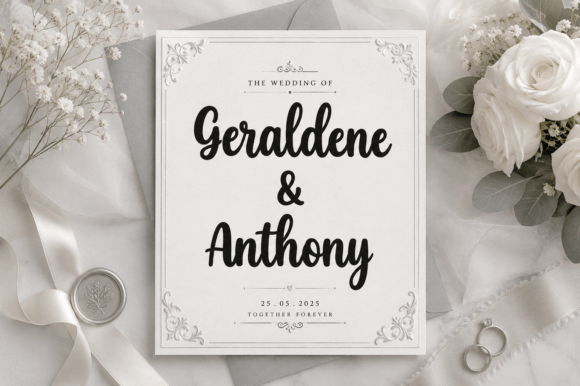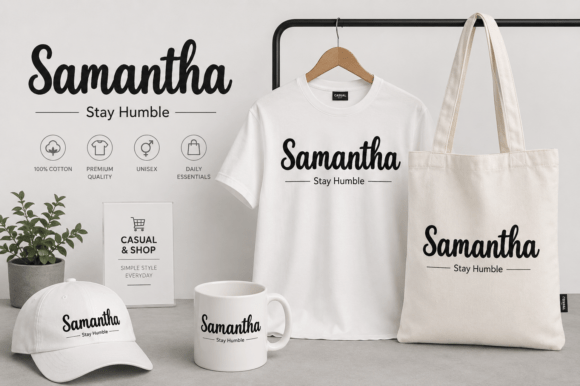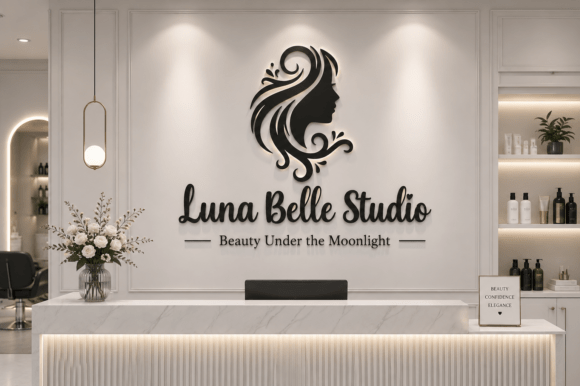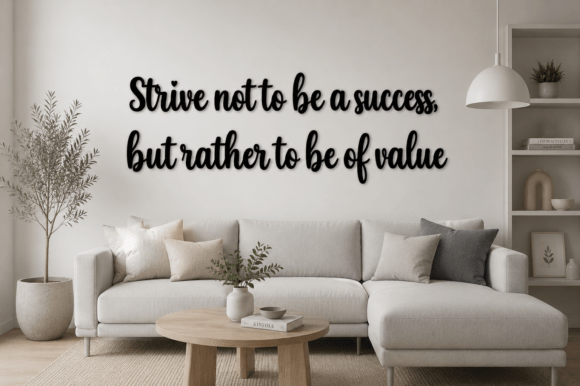
Introduction to Handlettering Font
Have you ever sat down with a cup of coffee, a blank sheet of paper, and a felt-tip pen, feeling the creative juices start to flow as you begin to bring your ideas to life? That’s the magic of handlettering – a moment where art and design come together in perfect harmony. And now, with the Handlettering Font, you can capture that same essence in your digital designs.
This beautifully crafted script font is more than just a design resource – it’s a key to unlocking the perfect balance between playfulness and readability. Whether you’re working on a creative project, designing a logo, or crafting a social media post, Handlettering Font is the perfect companion to bring a touch of warmth and personality to your work.
With its soft, bouncy rhythm and sweet, subtle details, this high-quality font is sure to elevate your designs to the next level. And the best part? It’s available for free download, making it the perfect addition to any designer’s toolkit. So why settle for generic fonts when you can add a personal touch with Handlettering Font?
Key Features of Handlettering Font
• High-quality, unique hand-drawn design for creative projects and designs.
• Perfect for adding a personal touch to logos, branding materials, and other design elements.
Honest Review: Handlettering Font
As a designer, I’m always on the lookout for unique design resources to enhance my creative projects. Recently, I came across the Handlettering Font, and I’m excited to share my honest review.
• ✨ High-quality glyphs that are perfect for adding a personal touch to my designs
• ⚠️ Limited customization options, which may not be suitable for designers who prefer a high degree of control
• ⚠️ Some users may find the font size and spacing to be inconsistent, requiring manual adjustments
In terms of overall impression, I’m impressed with the Handlettering Font’s unique character and versatility. While it may have some limitations, it’s an excellent choice for designers who want to add a touch of personality to their creative projects. The transparent background option also makes it easy to use with various design elements. With a bit of creativity, this font can elevate any design to the next level.
Getting the Most Out of Handlettering Font
Experiment with different font styles and combinations to achieve a unique look. Use the font in conjunction with other design elements, such as graphics and images, to create a visually appealing design. For a high-quality design, use the font in a high-resolution format and experiment with different layer styles.
The Handlettering Font is ideal for creating custom graphics, logos, and titles for creative projects. Use the font in conjunction with other design elements to create a visually appealing design. The font is also suitable for use in business cards, brochures, and other marketing materials.